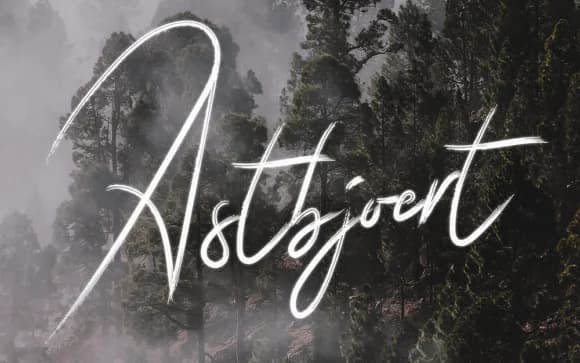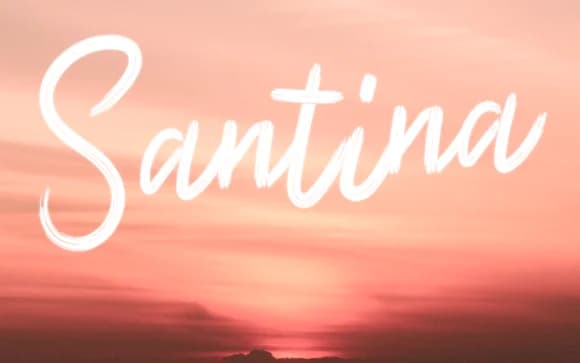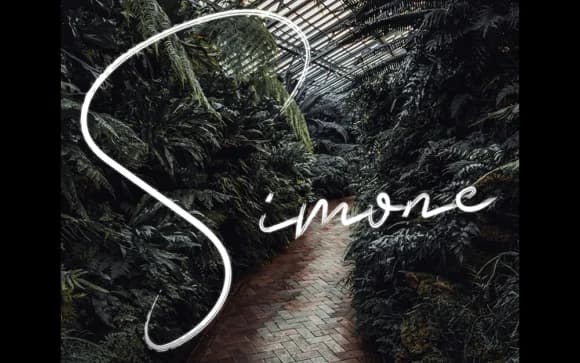
Androulla Font by edinsartstudio is a flowing handwritten script with an organic, sketch-like quality that captures authentic pen strokes. The letterforms move naturally across the page with characteristic weight variations that make each character feel genuinely hand-drawn rather than mechanically uniform. There's a relaxed confidence to the strokes, a quality that works because it doesn't try too hard to be perfect. Swashes are included, giving designers extra options when they want added flourish.
This font excels in projects that demand a personal, artisanal touch rather than clinical precision. Wedding invitation suites benefit from its graceful movement, as do luxury packaging designs for natural cosmetics or artisanal skincare products where authenticity matters. You'll find it works beautifully for custom greeting cards, boutique product labels, and small-batch business branding where warmth and character outweigh strict consistency. It's equally effective on event stationery, special occasion programs, and custom bookplates where a handcrafted feel enhances the message.
Androulla Font is a script font that shines as a display or heading face. Pair it with a clean sans-serif or serif font for body text β the contrast creates a clear hierarchy while the two styles stay balanced and easy to read.